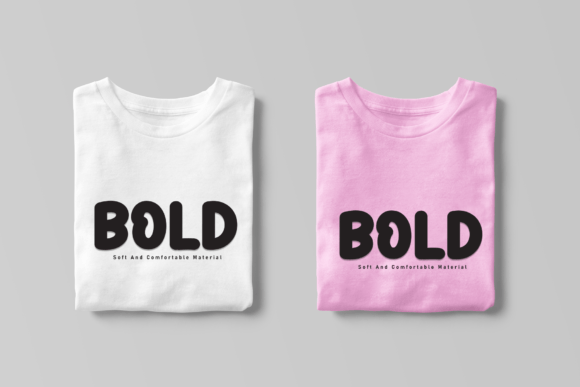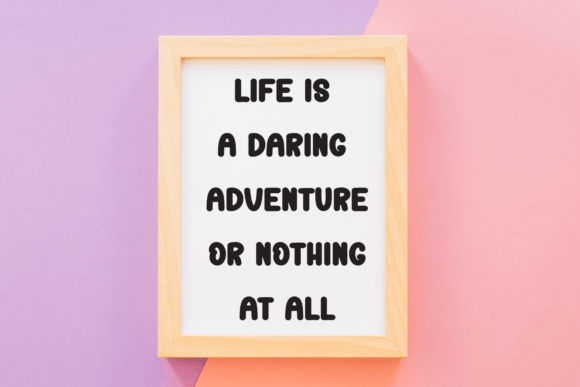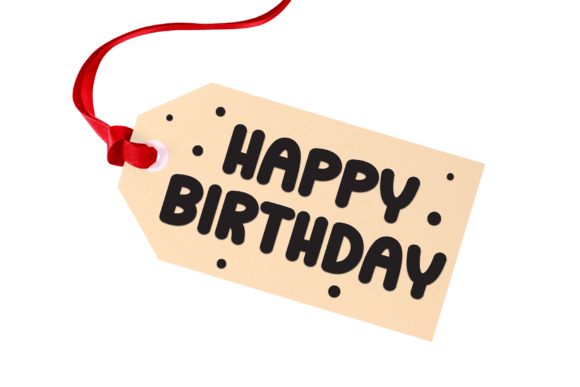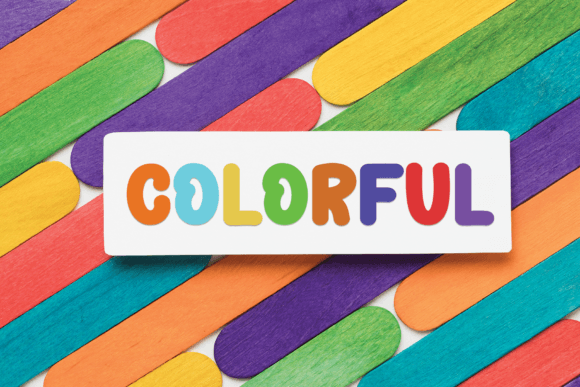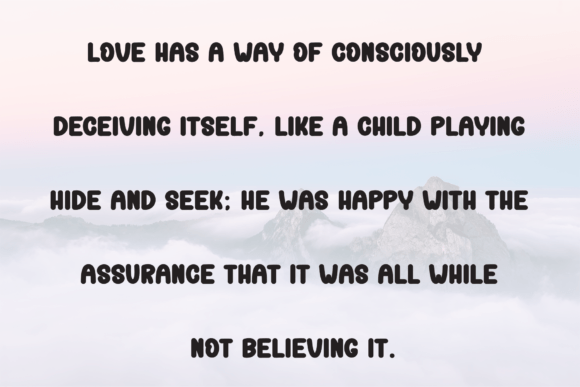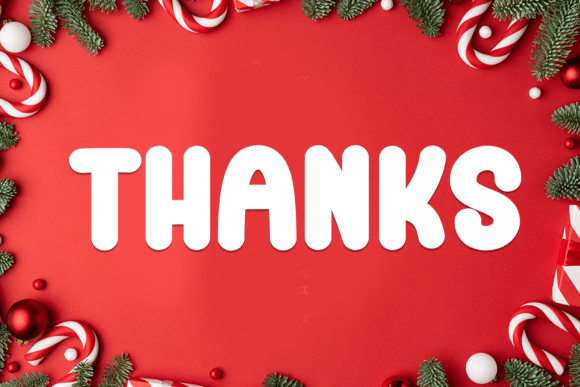
Hello Christmas Font: The Perfect Addition to Your Holiday Designs
Are you looking for a font that captures the essence of Christmas? Look no further than the Hello Christmas font! This sweet and friendly handwritten font is perfect for adding a personal touch to your holiday designs. In this article, we’ll explore the features and benefits of Hello Christmas font and show you how to make the most of it in your designs.
What is Hello Christmas Font?
Hello Christmas font is a beautiful, handwritten font that is designed to evoke the warmth and joy of the holiday season. Its natural and unique style makes it incredibly fitting to a large pool of designs, from festive holiday cards to cozy winter-themed crafts. The font’s friendly and approachable feel makes it perfect for designers and crafters who want to add a personal touch to their work.
Key Features of Hello Christmas Font
- Handwritten style: Hello Christmas font has a beautiful, handwritten style that gives it a personal and unique feel.
- Natural and unique: The font’s natural and unique style makes it incredibly fitting to a wide range of designs.
- Festive and fun: Hello Christmas font is perfect for holiday designs, with a festive and fun feel that’s sure to get you in the holiday spirit.
- Easy to read: Despite its playful style, Hello Christmas font is easy to read, making it perfect for use in a variety of designs.
Benefits of Using Hello Christmas Font
There are many benefits to using Hello Christmas font in your designs. Here are just a few:
- Adds a personal touch: Hello Christmas font adds a personal touch to your designs, making them feel more unique and special.
- Perfect for holiday designs: The font’s festive and fun feel makes it perfect for holiday designs, from Christmas cards to winter-themed crafts.
- Versatile: Hello Christmas font can be used in a wide range of designs, from digital projects to print materials.
How to Use Hello Christmas Font
Using Hello Christmas font is easy! Here are a few tips to get you started:
- Pair it with other fonts: Hello Christmas font pairs well with other fonts, such as bold sans-serif fonts or elegant script fonts.
- Use it in holiday designs: The font is perfect for holiday designs, from Christmas cards to winter-themed crafts.
- Experiment with colors: Hello Christmas font looks great in a variety of colors, from bright and bold to soft and pastel.
- Have fun: The most important thing is to have fun and be creative with Hello Christmas font!
Design Ideas Using Hello Christmas Font
- Christmas cards: Use Hello Christmas font to create beautiful, personalized Christmas cards for friends and family.
- Winter-themed crafts: The font is perfect for winter-themed crafts, such as snowflake decorations or holiday gift tags.
- Holiday party invitations: Use Hello Christmas font to create festive and fun holiday party invitations.
- Digital projects: The font can be used in digital projects, such as holiday-themed social media graphics or festive email newsletters.
Hello Christmas font is a beautiful and versatile font that’s perfect for adding a personal touch to your holiday designs. Its natural and unique style makes it incredibly fitting to a wide range of designs, from festive holiday cards to cozy winter-themed crafts. With its ease of use and festive feel, Hello Christmas font is sure to become a favorite in your design toolkit. So why wait? Download Hello Christmas font today and start creating your own unique holiday designs!